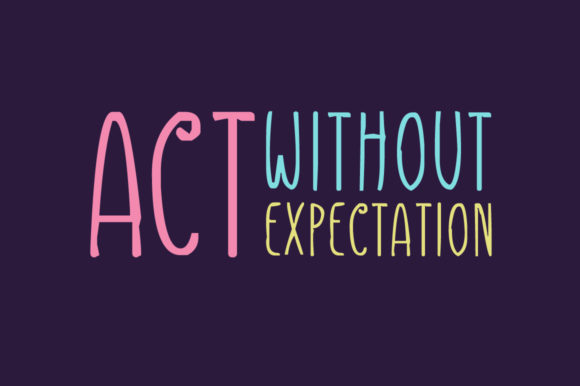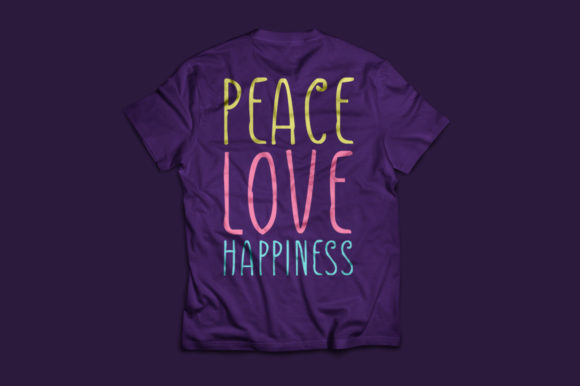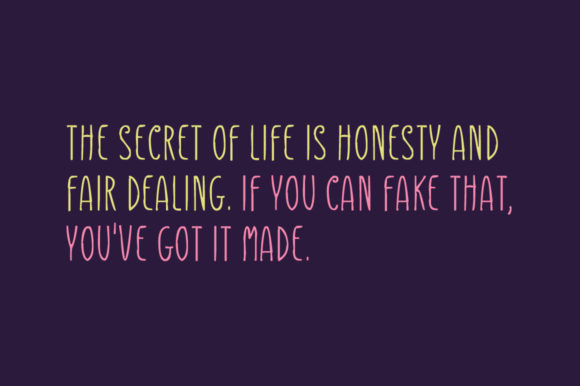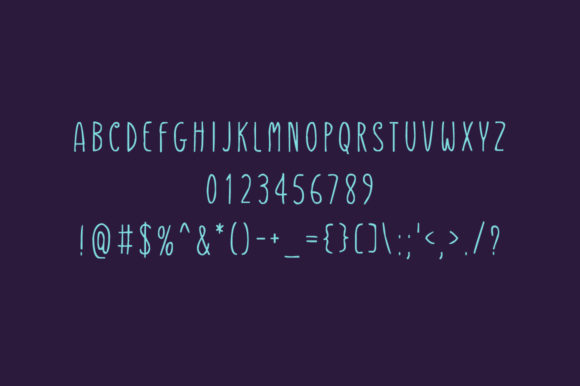
Goodlier Font
About Goodlier Font
The Goodlier is a brand new handwritten font. It’s perfectly suited for stationery, logos, t-shirts, papers, print designs, website headers, photo frames, flyers, music covers, posters, image sliders and much more.